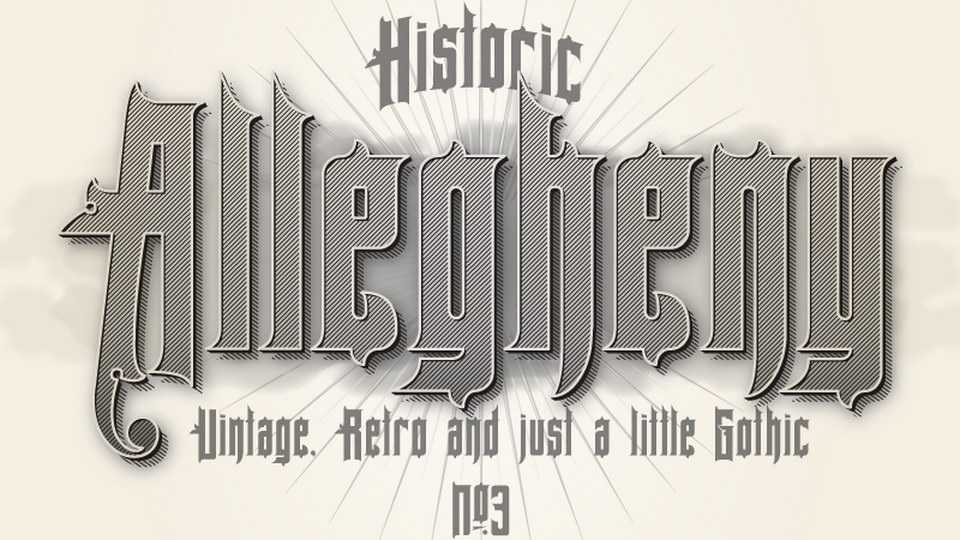
Download Allegheny font, a vintage, retro and just little gothic font, inspired by Sanborn map, based on the glyphs from a 1906 insurance map for Allegheny, Pennsylvania.